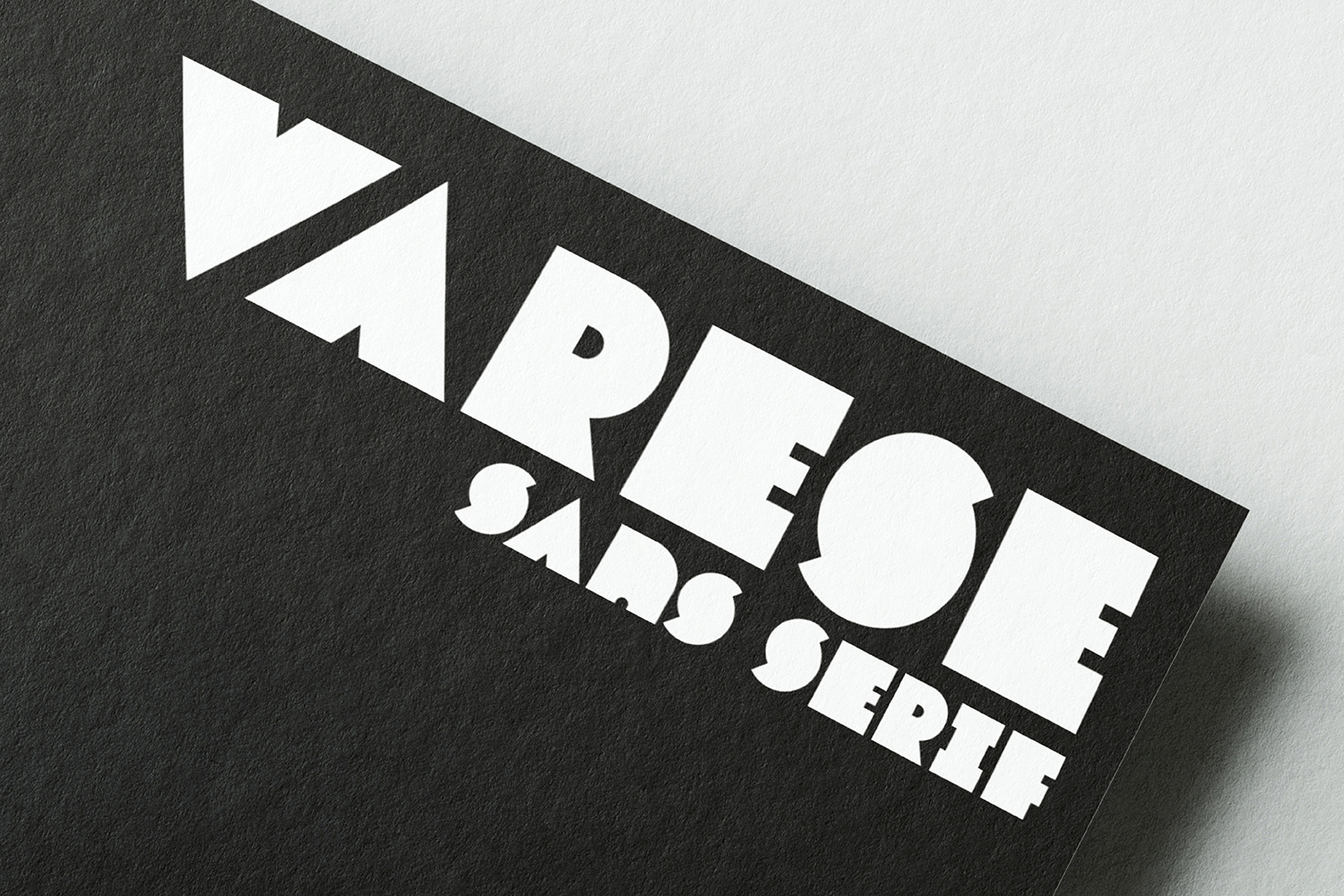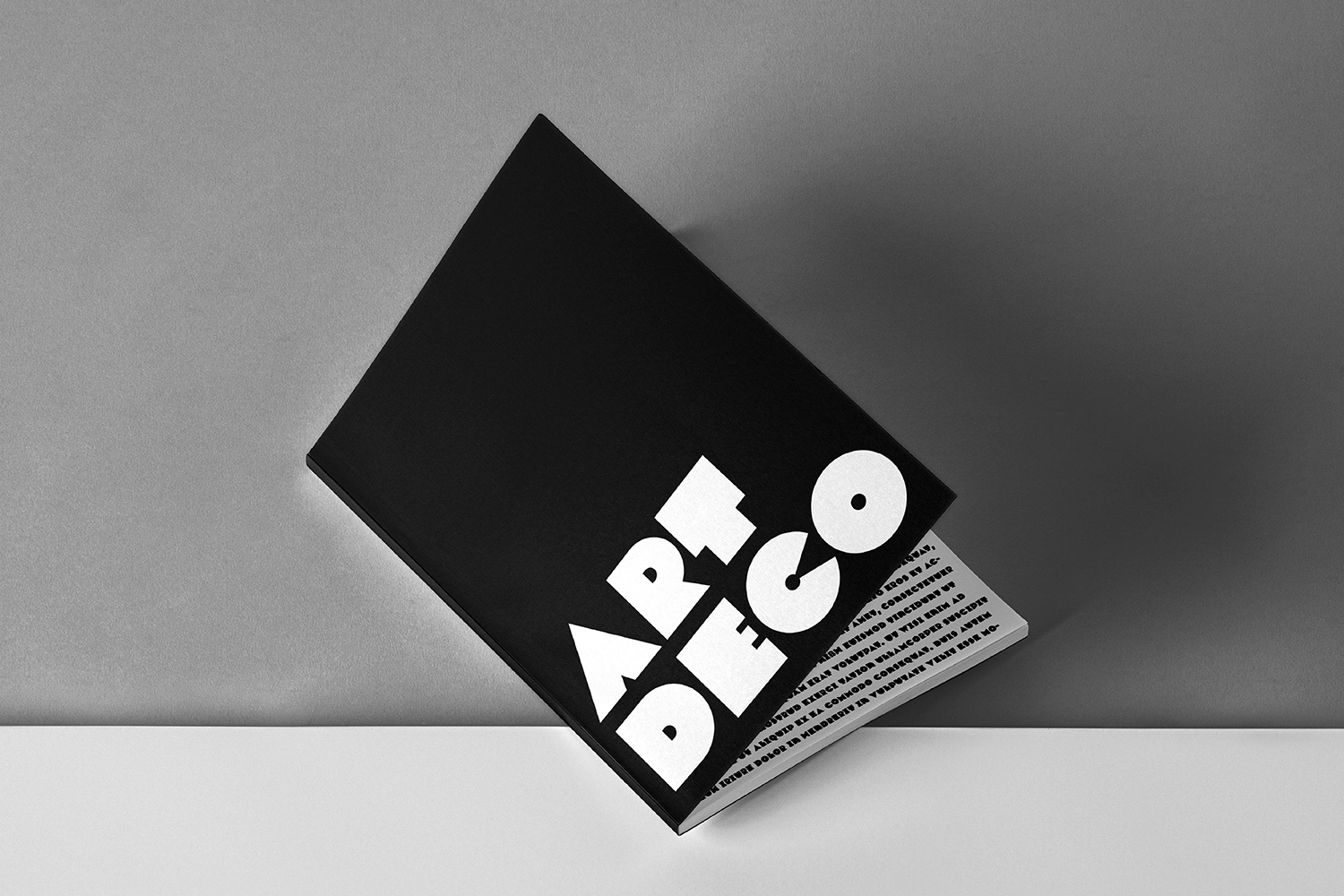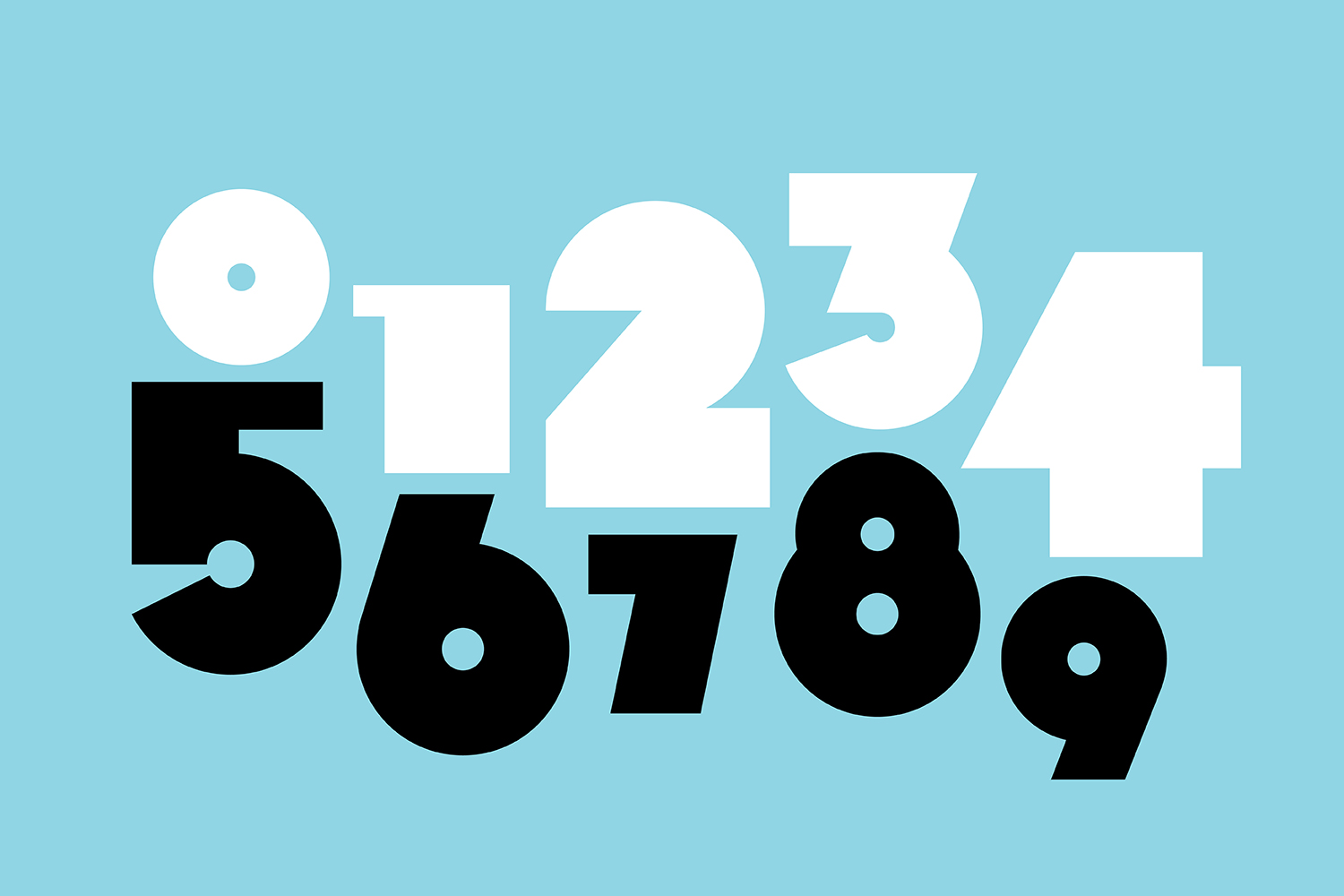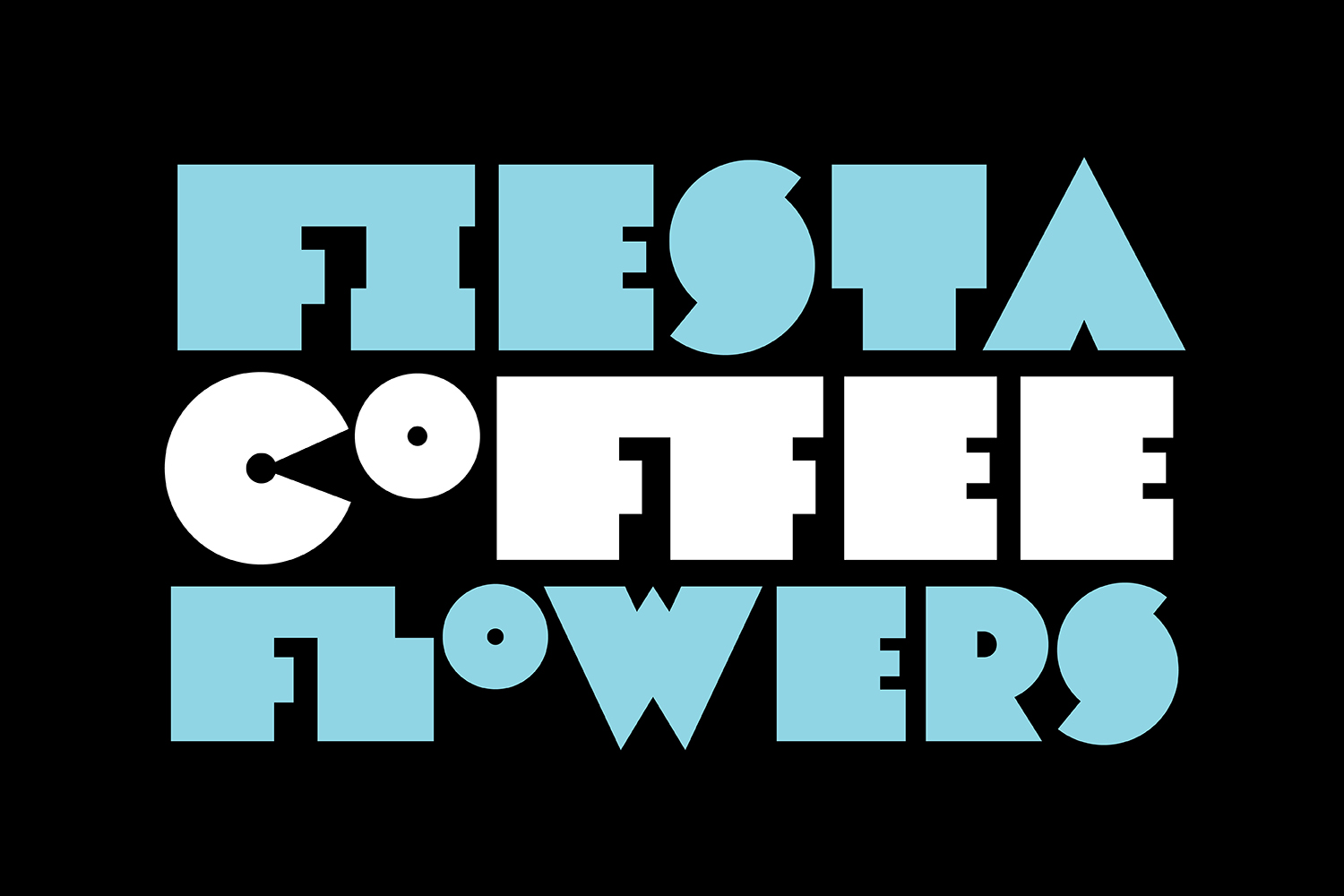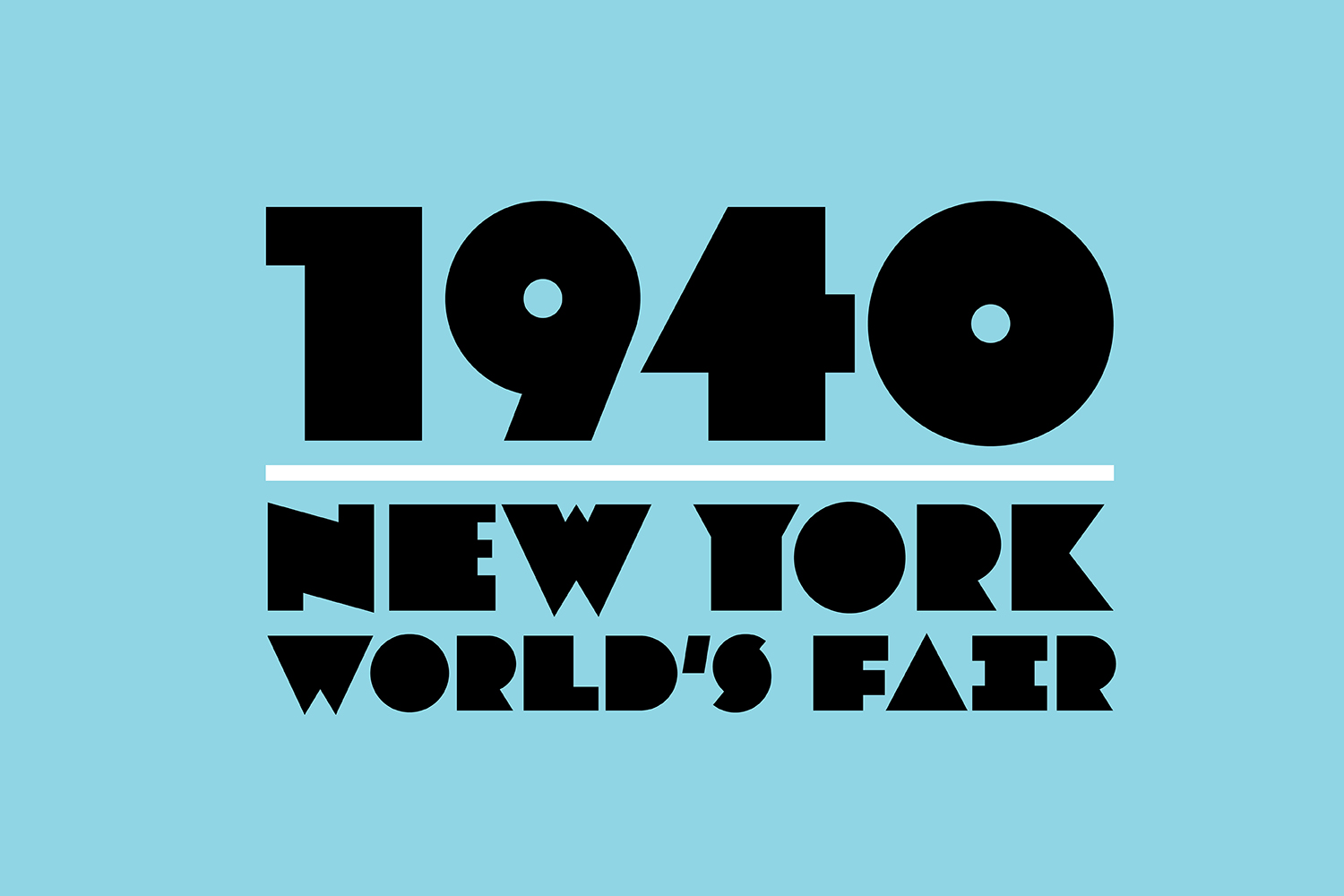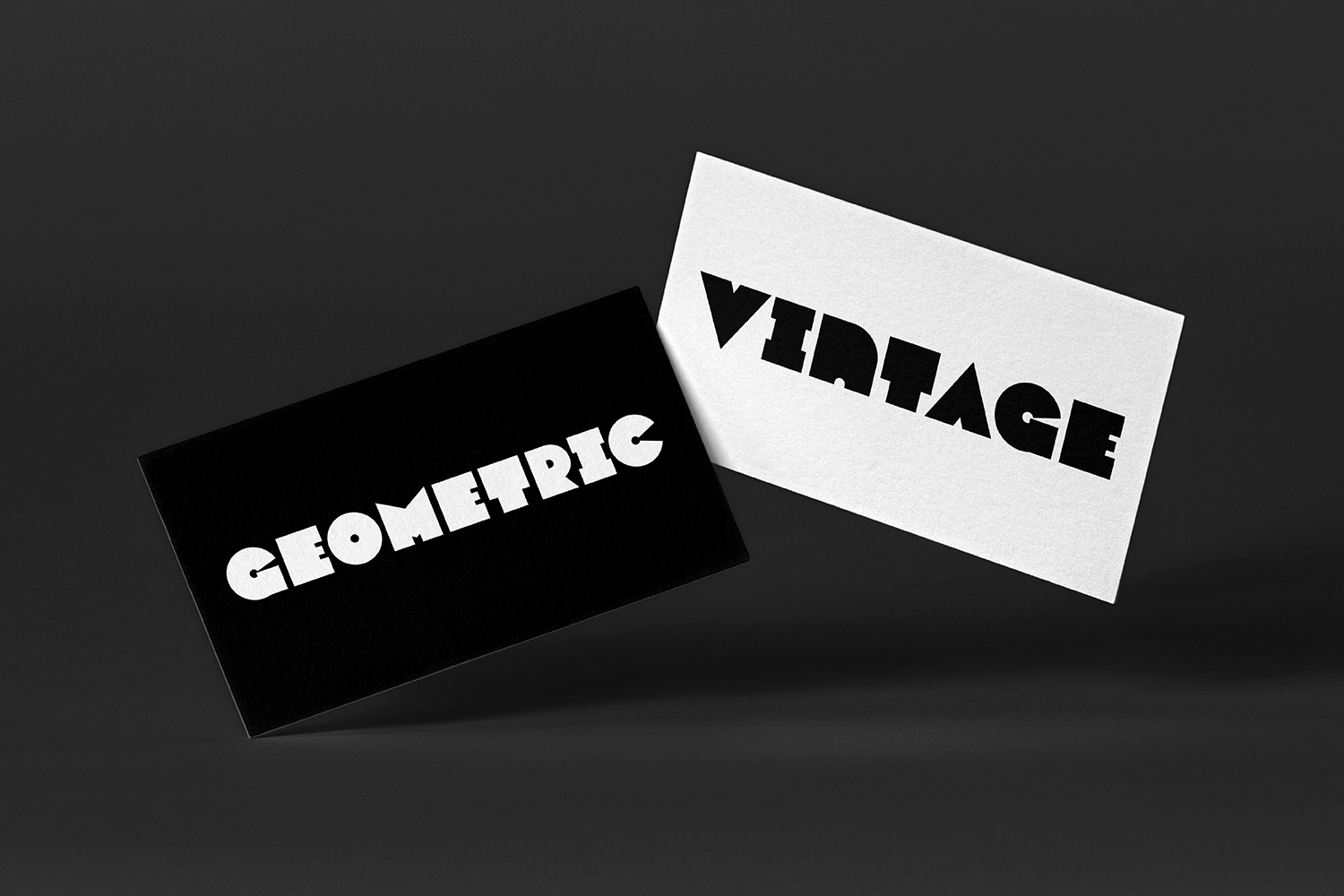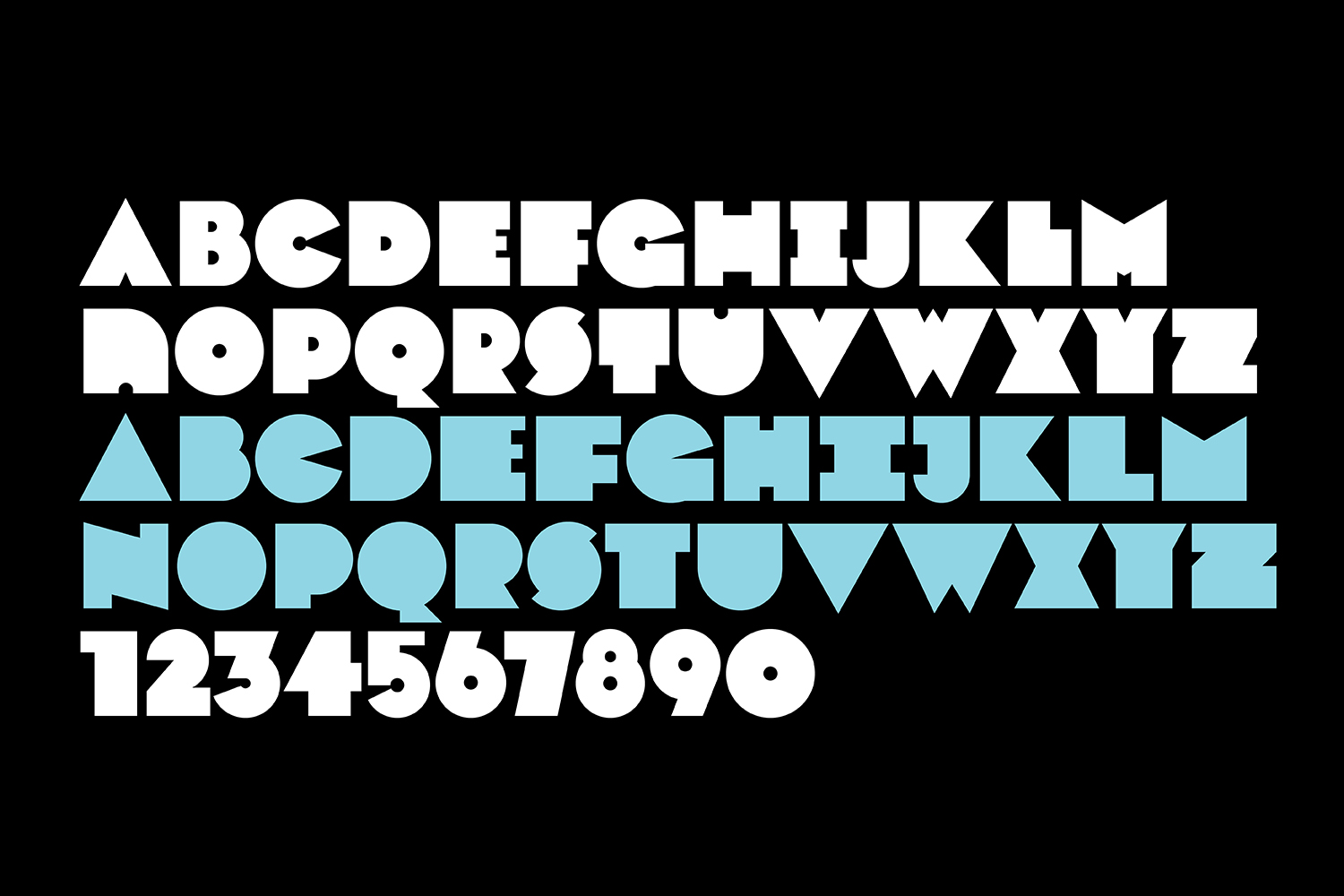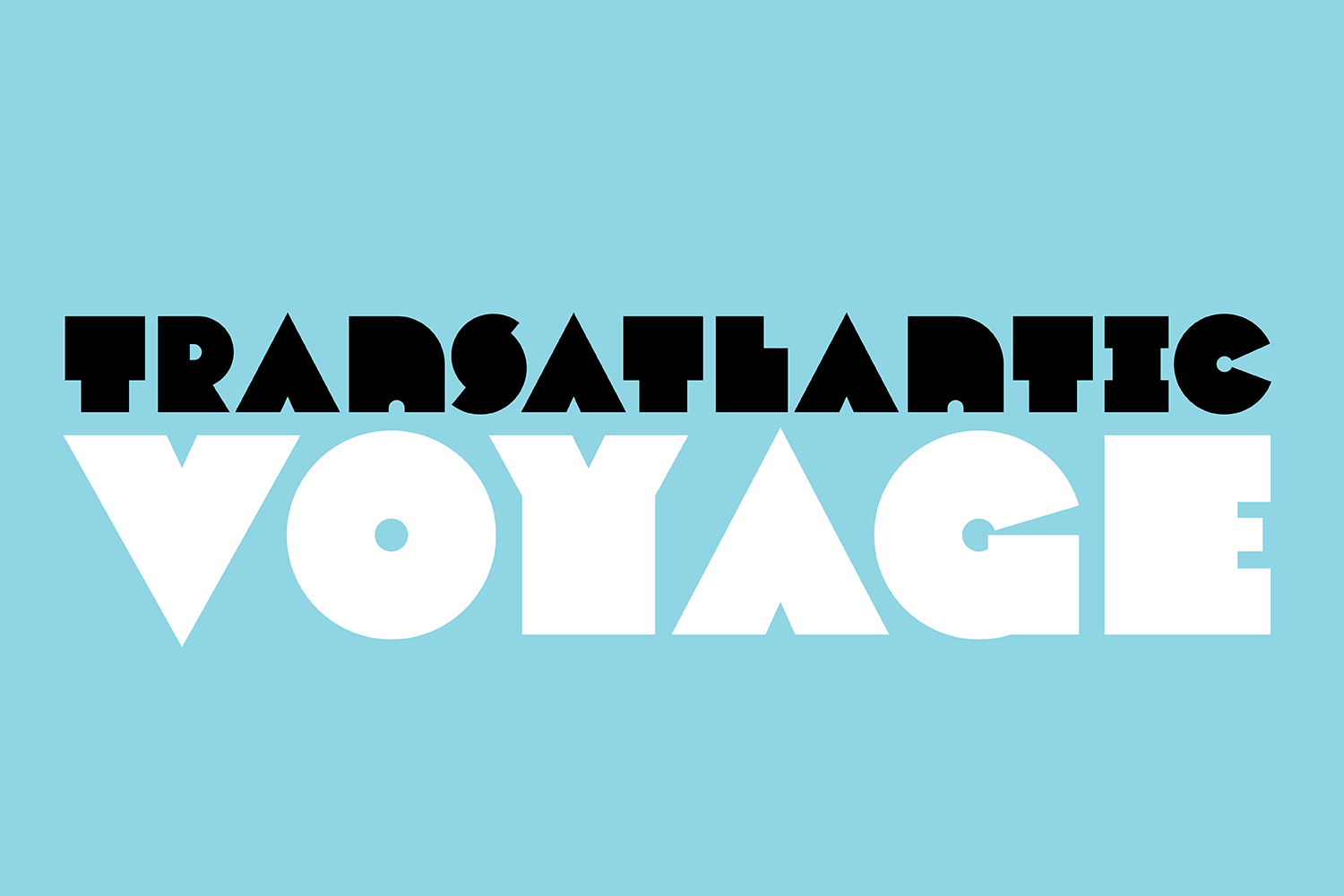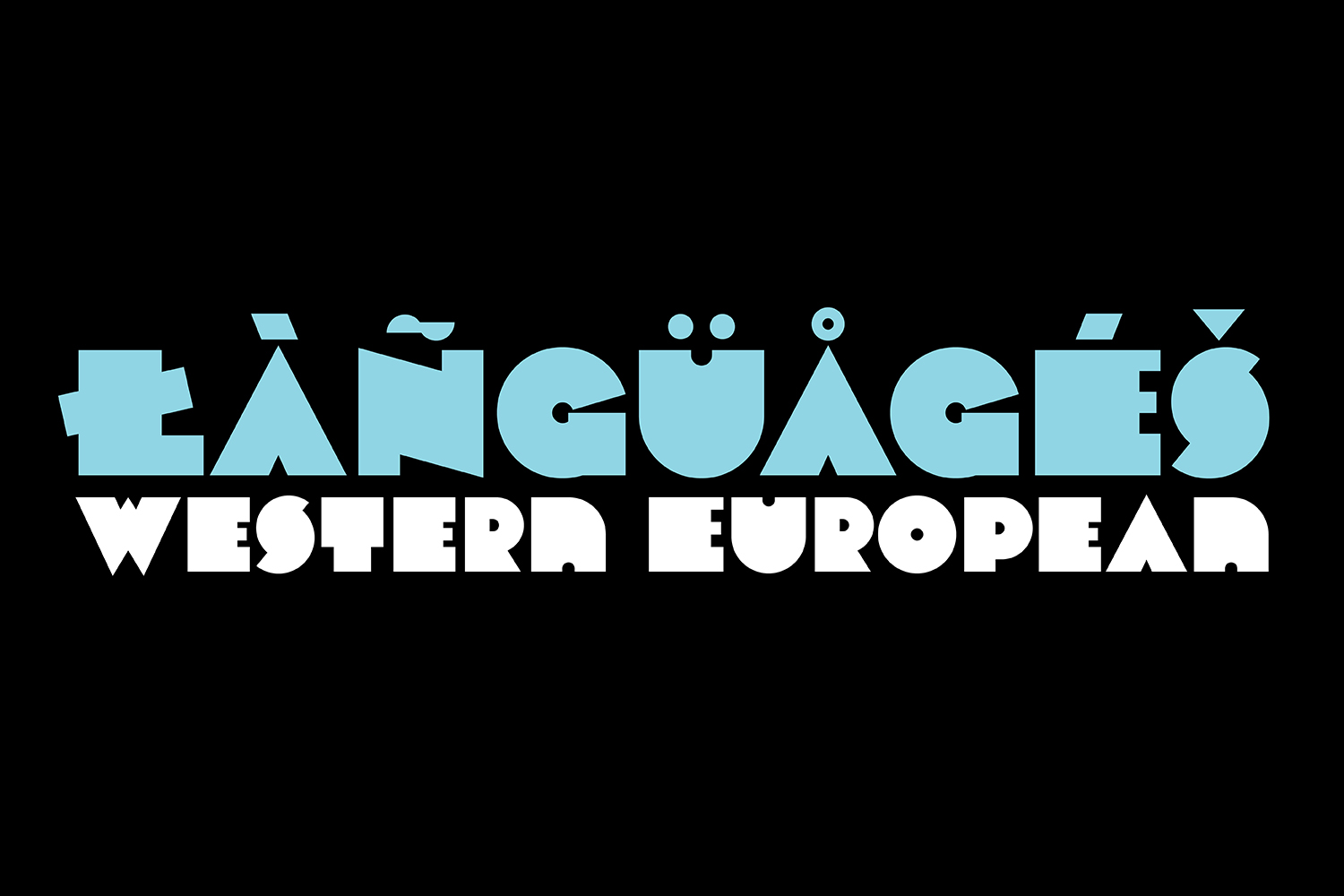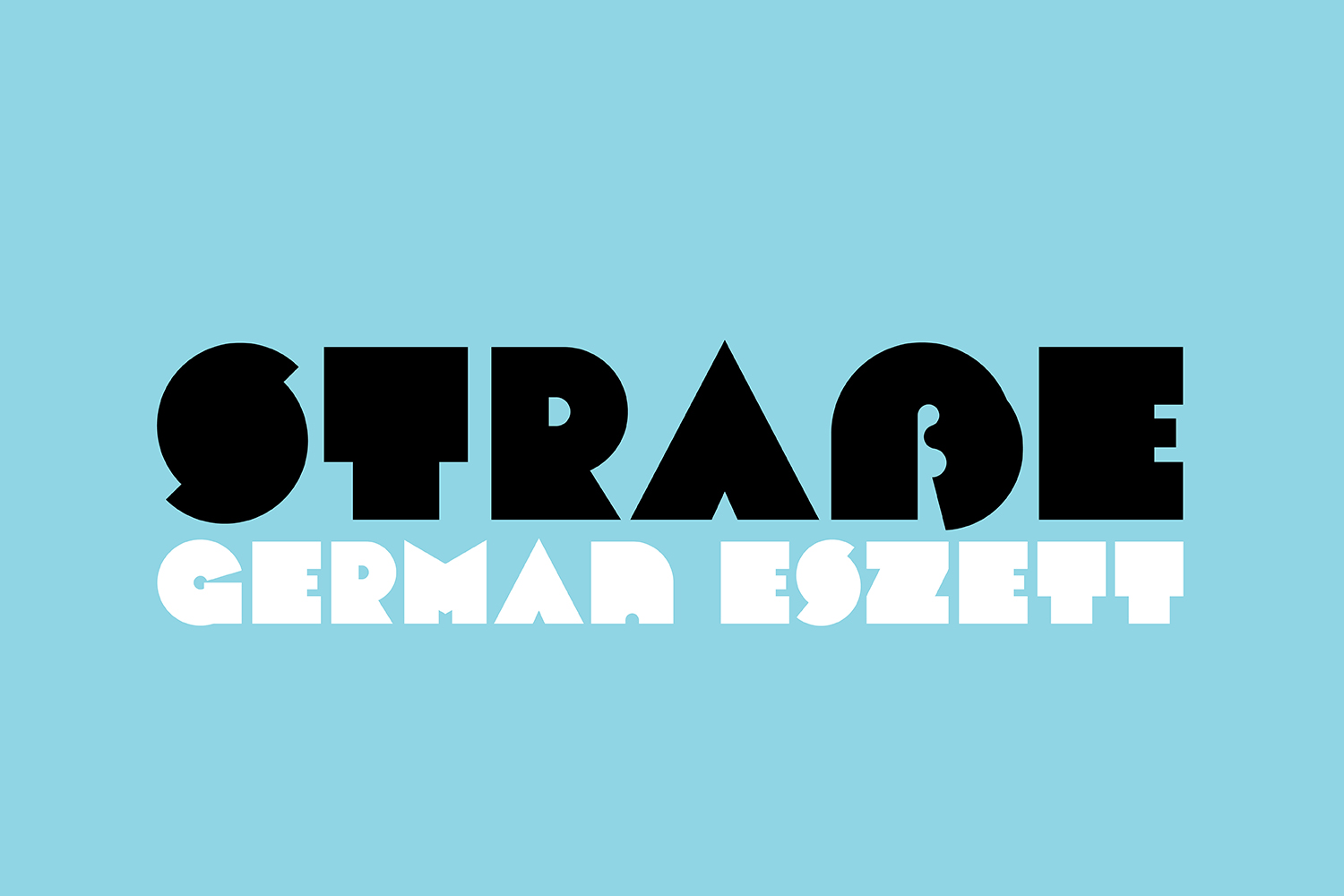
Varese has a sibling, Varese Soft
Exciting news! My typeface design work has made its way to the big screen on another film by local filmmaker, Soren Sorensen. This time Varese makes an appearance in “Omar Sosa’s 88 Well-tuned Drums”. It's a documentary on Omar Sosa / Omar Sosa Music, the musical alchemist who "explores jazz, hop-op, and electronica with an Afro-Cuban Heart". Poster design by Edel Rodríguez.